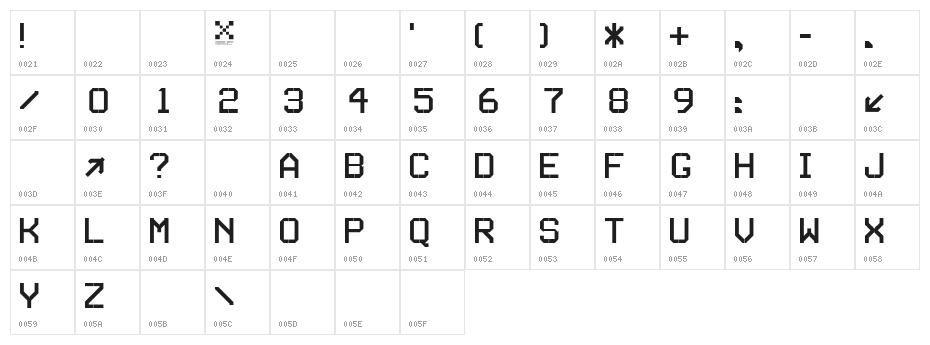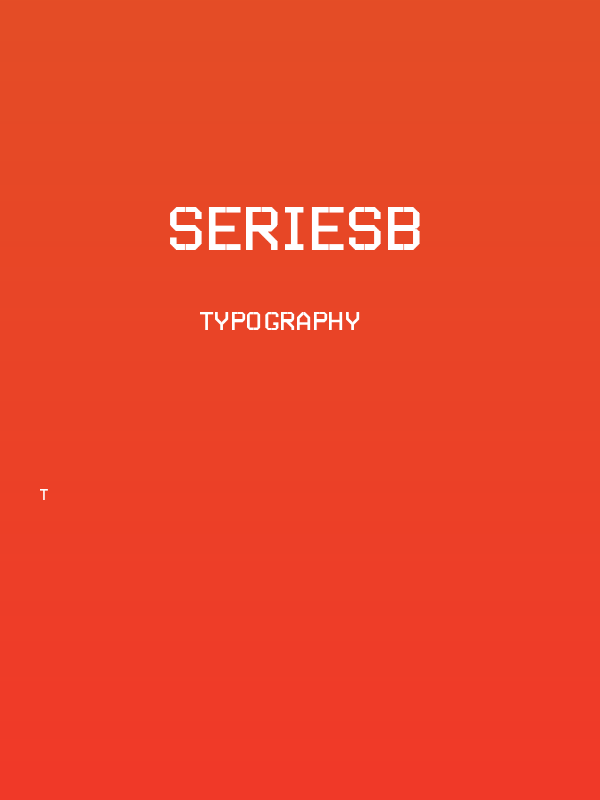
SERIESB Font
SERIESB Description
This font features a bold, geometric design with a distinctly modern and digital aesthetic. The characters are constructed with sharp, angular lines and consistent stroke widths, creating a uniform and cohesive appearance. The uppercase and lowercase letters maintain a blocky, pixel-like form, reminiscent of early digital displays or video game graphics. The numerals and special characters follow the same stylistic approach, ensuring visual harmony across all elements. This font's unique style makes it stand out, offering a futuristic and tech-inspired vibe.
| Use Case | Logos, Headlines, Digital displays |
| Proposed Projects | Ideal for tech-related branding, video game graphics, digital art projects, and modern poster designs. |